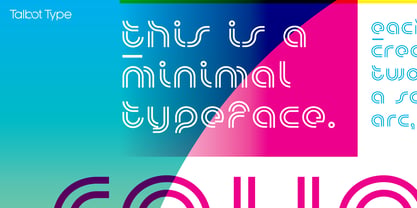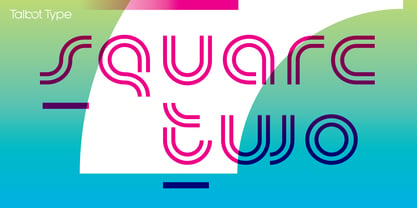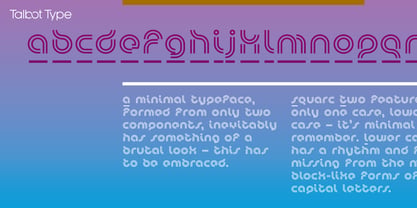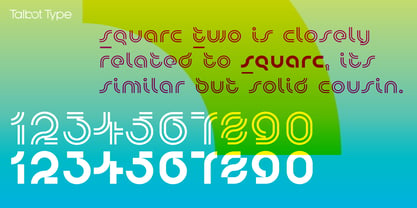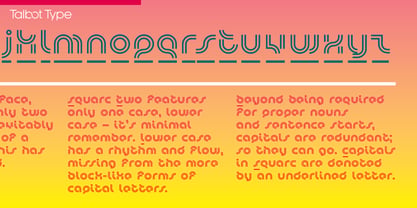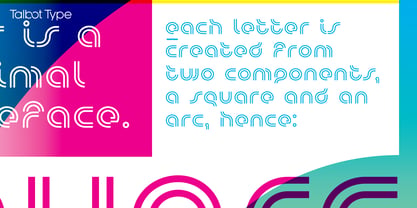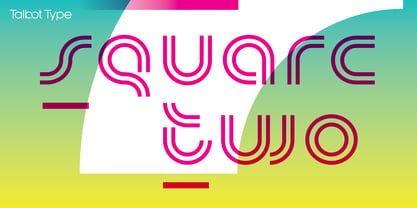
Squarc Two
Die Schriftfamilie Squarc Two wurde von Adrian Talbot entworfen und von Talbot Type veröffentlicht. Squarc Two enthält 1 Stile. Mehr über diese Familie
Squarc Two features only lower case – it's minimal remember. Lower case characters have a rhythm and flow, missing from the more block-like forms of capital letters. And besides, beyond being required for proper nouns and sentence starts, capitals are redundant; so they can go. Capitals in Squarc Two are denoted by an underlined letter. As mentioned previously, it really is minimal.
Also available as Squarc, a solid version of Squarc Two.
Most of my fonts are influenced by the classic movements of the twentieth century — Modernism, the Bauhaus, Constructivism and Art Deco — I aspire to create timeless designs, valid now and in the future. These are not showy faces, but practical, hard-working text and display fonts. Occasionally I branch out into more experimental, display fonts, possibly as a result of my years as a graphic designer with a focus on identities and communications and the need to stand out from the crowd — in a good way.